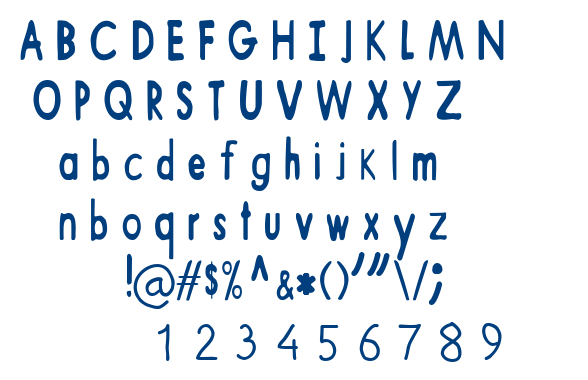
Tiny Small Medium Large Shaun the Sheep font spideray Website Shaun_the_Sheep.ttf Download 1354 downloads Free for personal use Category: Fancy » Cartoon Shaun the Sheep font. Shaun the Sheep v1.6 now complete its a fan-based font based on the opening titles of the series of the same name Character Map specimen sheet